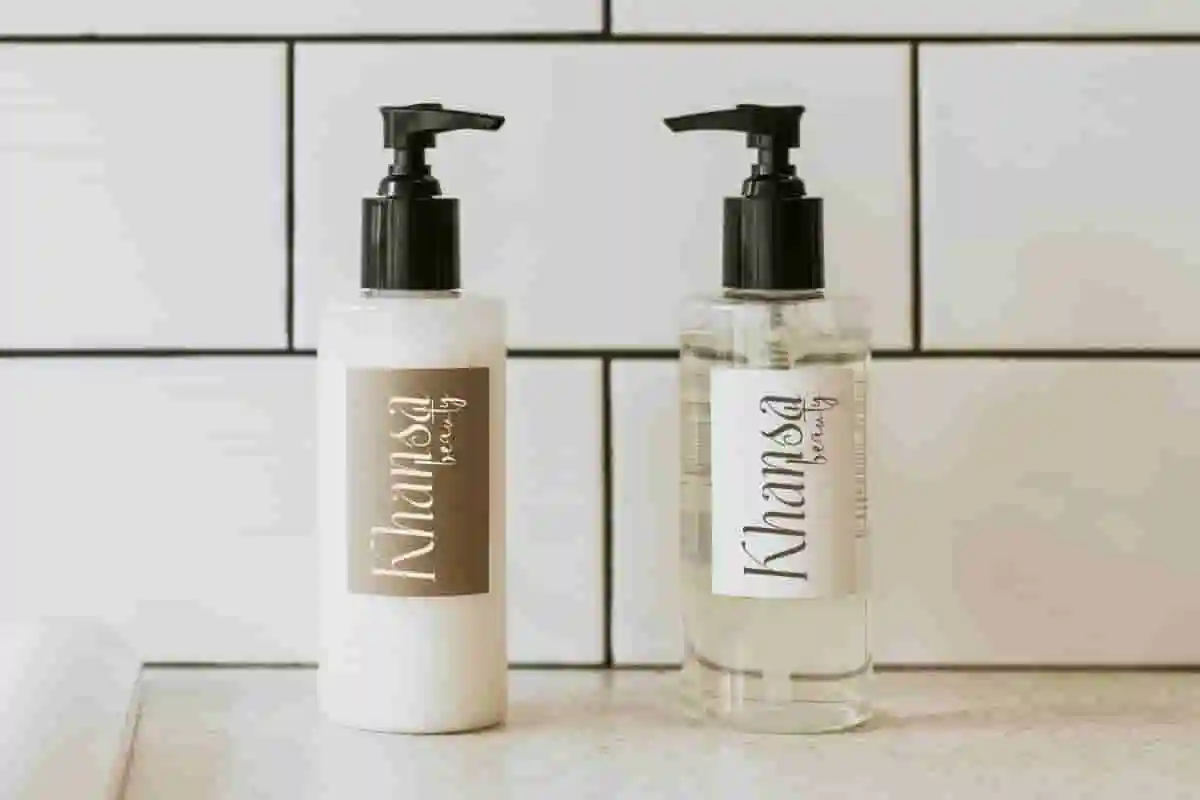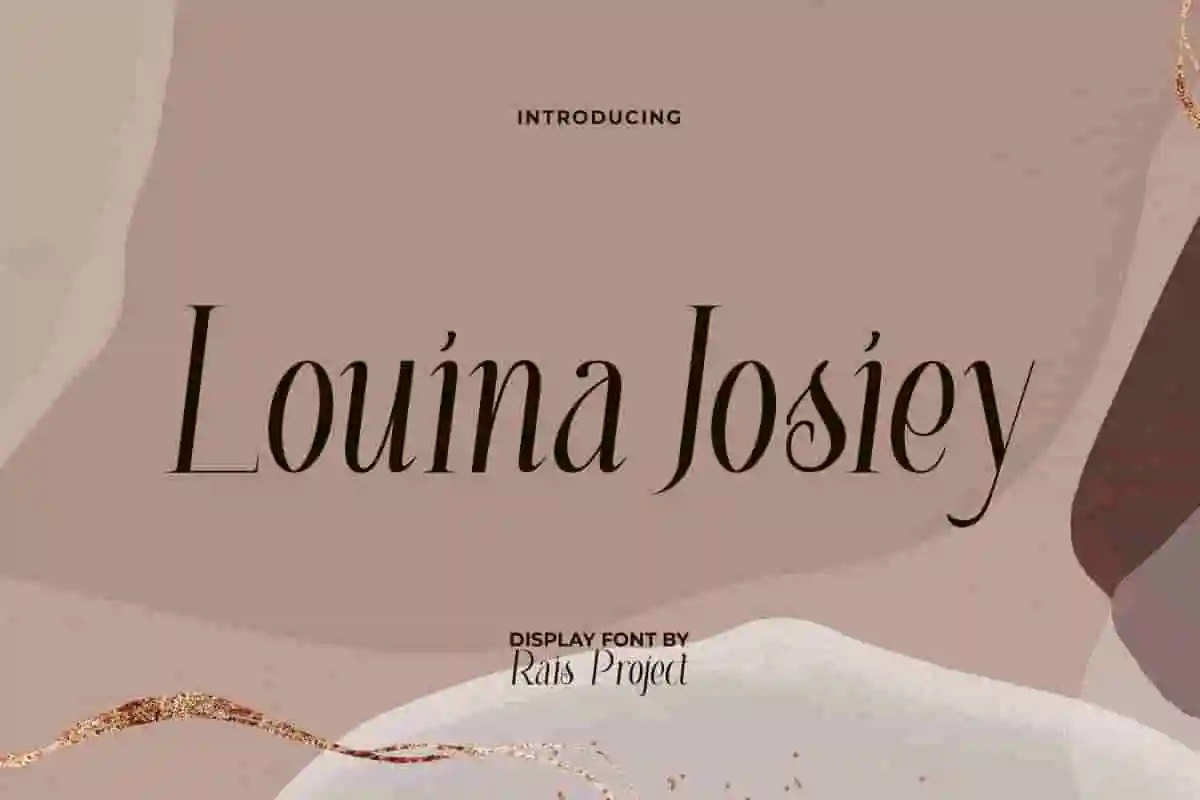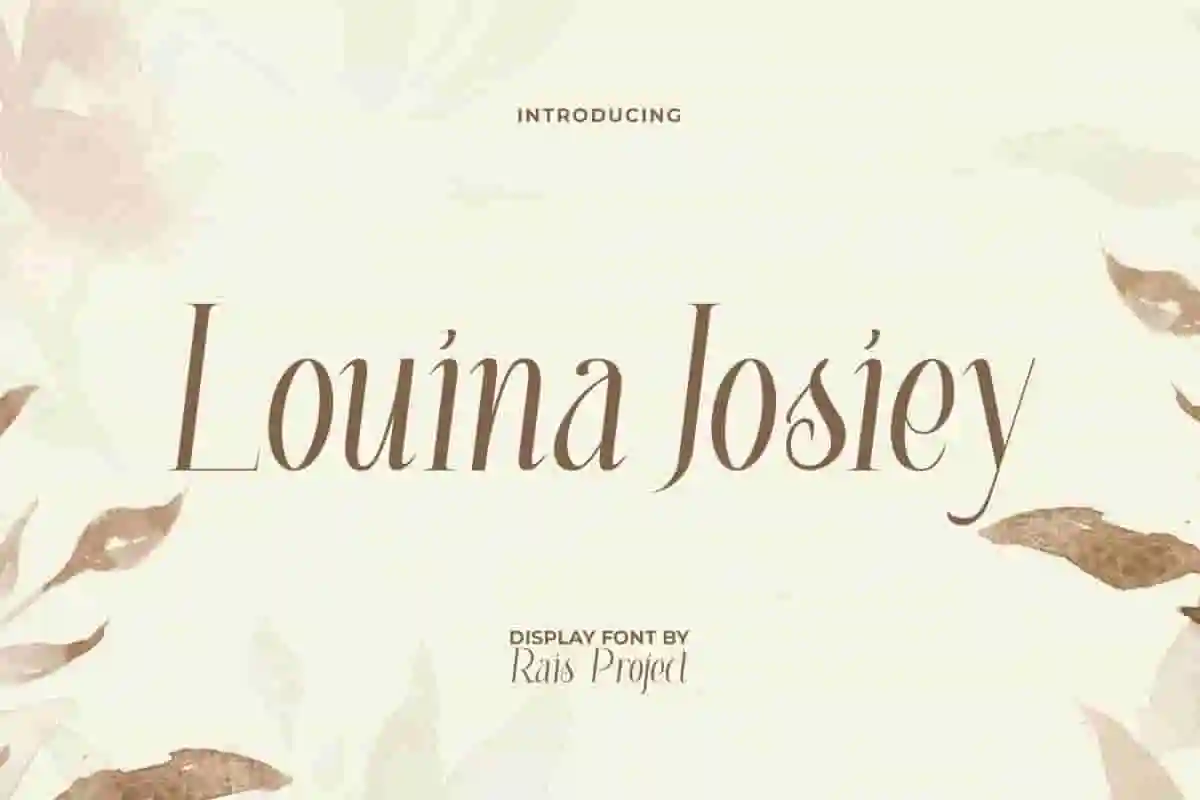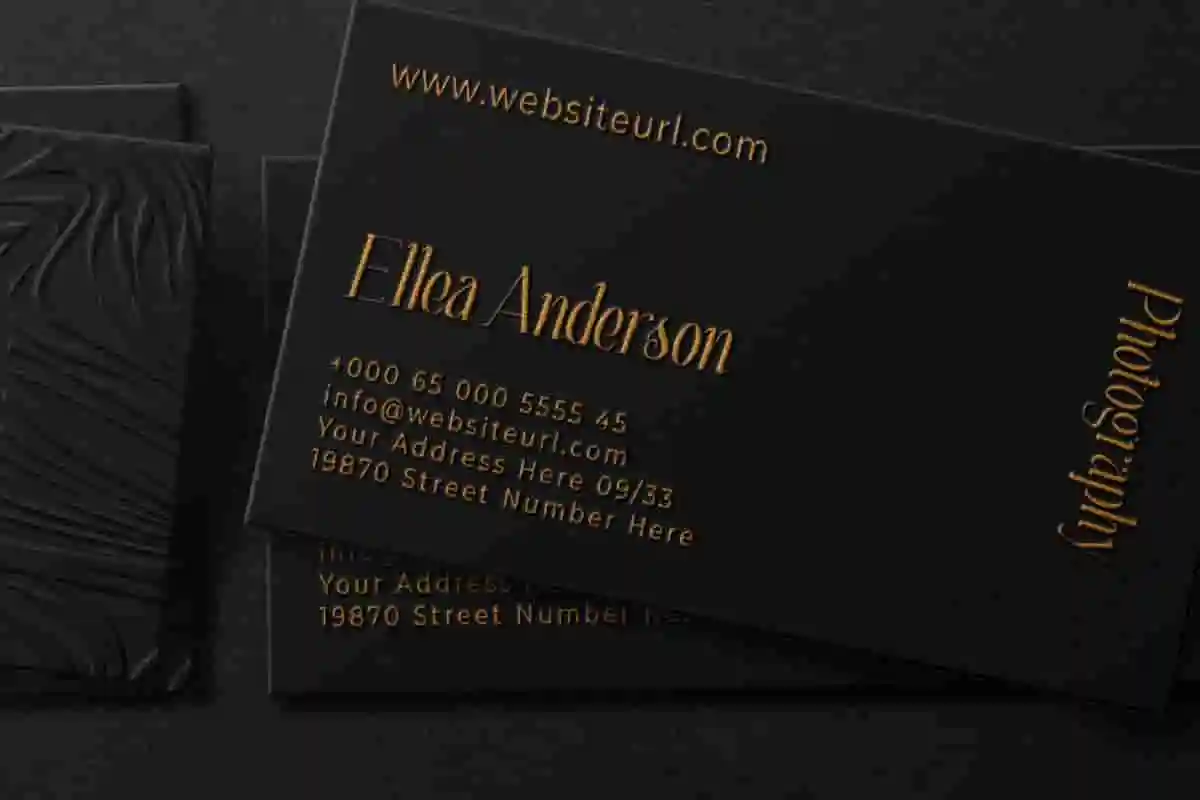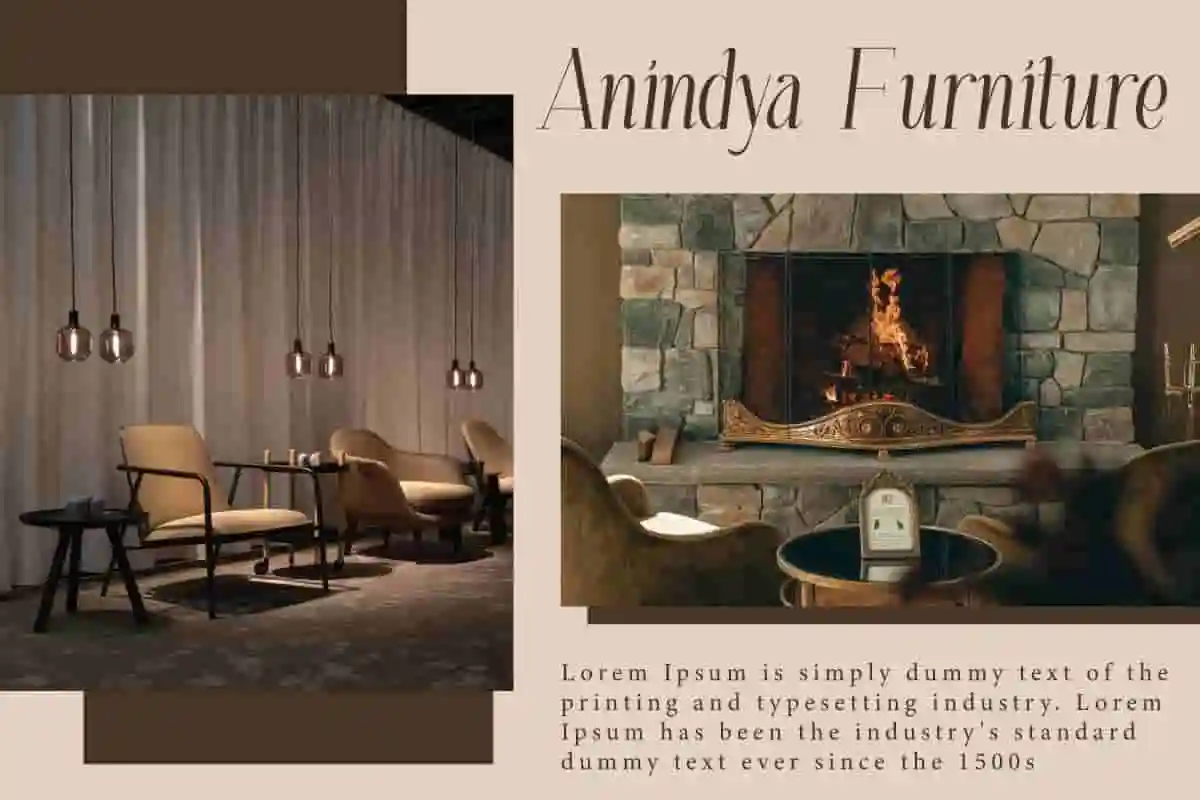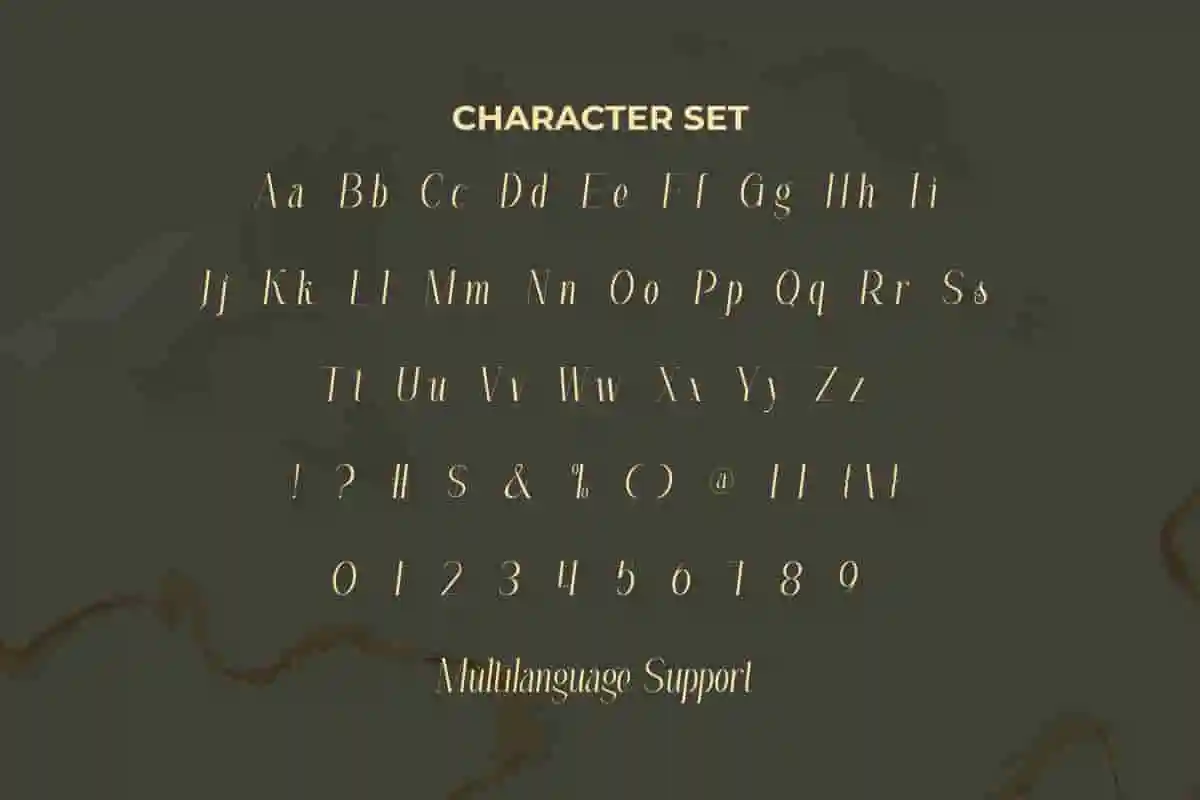
Louina Josiey Font
Louina Josiey Font is an elegant serif display font with a luxury theme style. As the name implies, this font has exclusive luxury for your various designs. Use this font right away and see how amazing it is!
Louina Josiey Font is an elegant serif display font. This font carries a minimalist and simple concept to exude its luxury. It will work well in many designs, such as brand image, business card, cover, custom design, gift box, greeting card, invitation, label, menu, product packaging, quote, signage, web, and more! You can see the demo font below, input any word you want so you can see what it looks like:
Louina Josiey Font includes a full set of Uppercase and Lowercase Letters, Numerals, and large range of Punctuation. This expensive font will be suitable for various industries, such as advertisement, beauty product, event organizer, fashion, jewelry and accessories, photography, printing, publishing, etc. What you get: